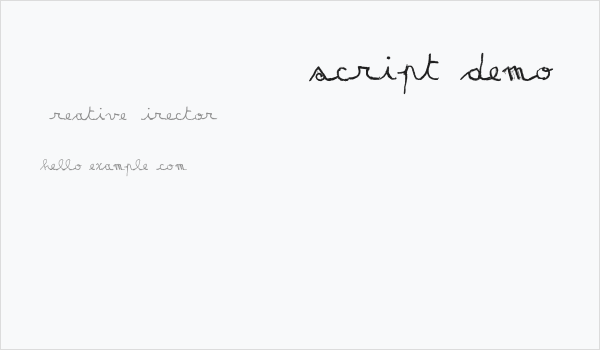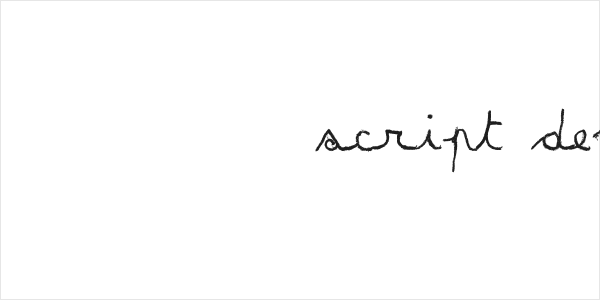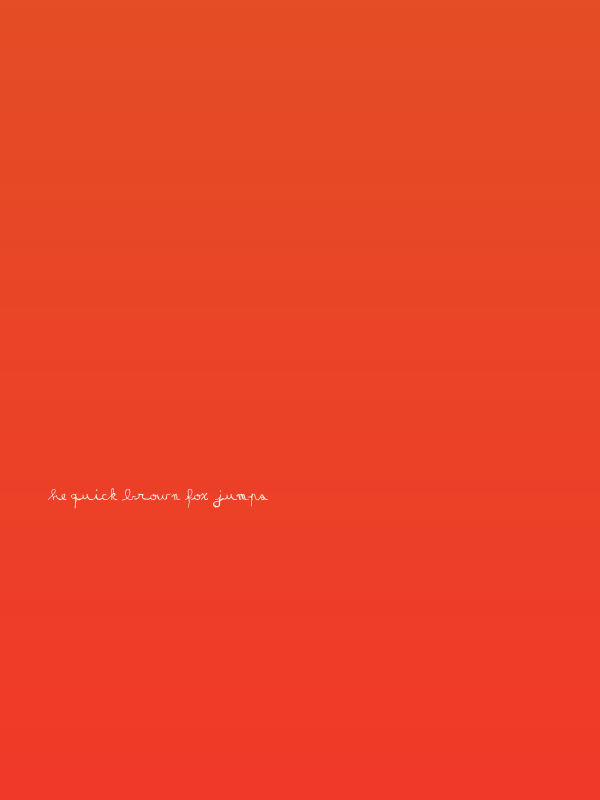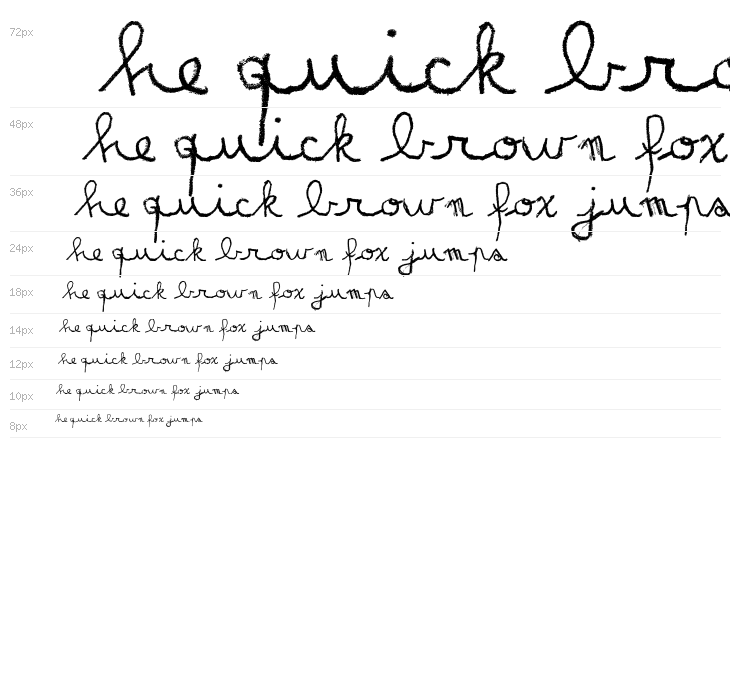
MATILDAS GRADE_script-demo Font
MATILDAS GRADE_script-demo Description
This font features a charming and whimsical script style, characterized by its fluid and connected letterforms. The strokes are smooth and slightly irregular, giving it a hand-drawn appearance. The lowercase letters are particularly distinctive, with playful loops and curves that add a sense of movement and personality. The overall look is casual yet elegant, making it suitable for projects that require a personal touch. The font's unique style is perfect for creative designs, invitations, and artistic projects.
A whimsical and fluid script font with a hand-drawn appearance from Uncategorized fonts.
- Proposed Projects: Ideal for invitations, greeting cards, artistic projects, and creative branding.
- Use Case: Logos, Invitations, Artistic projects